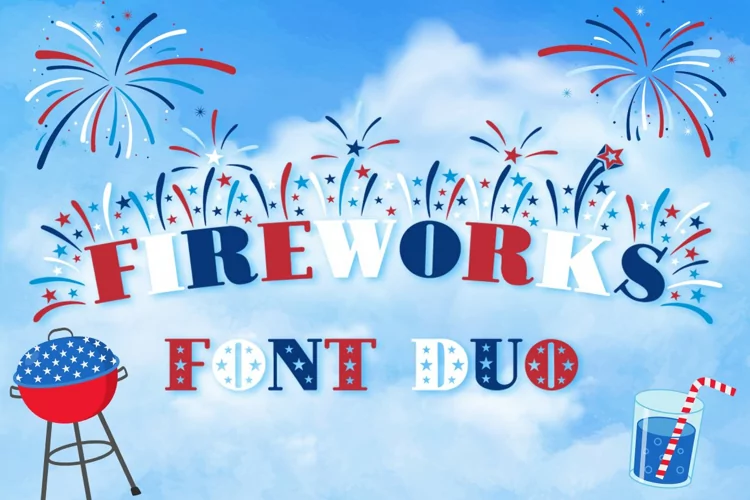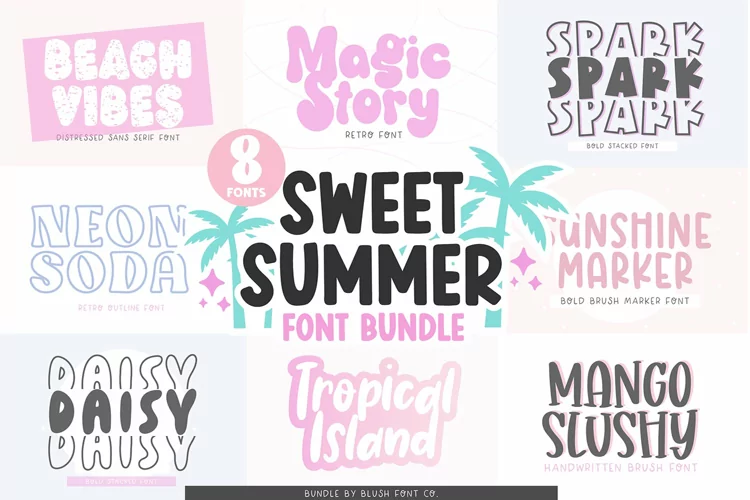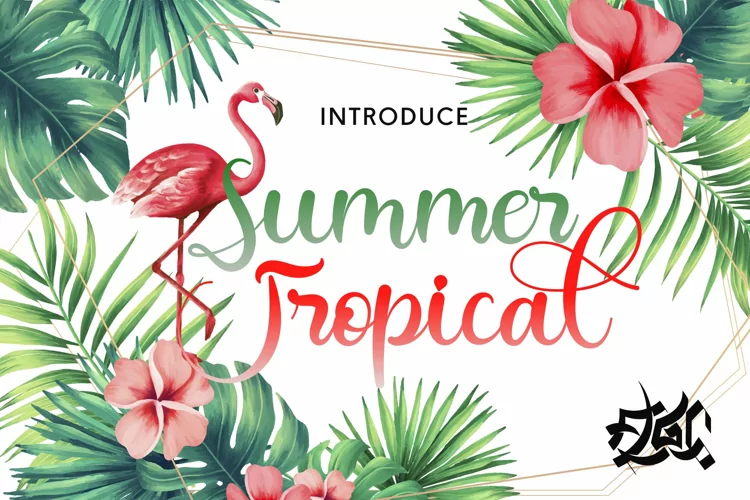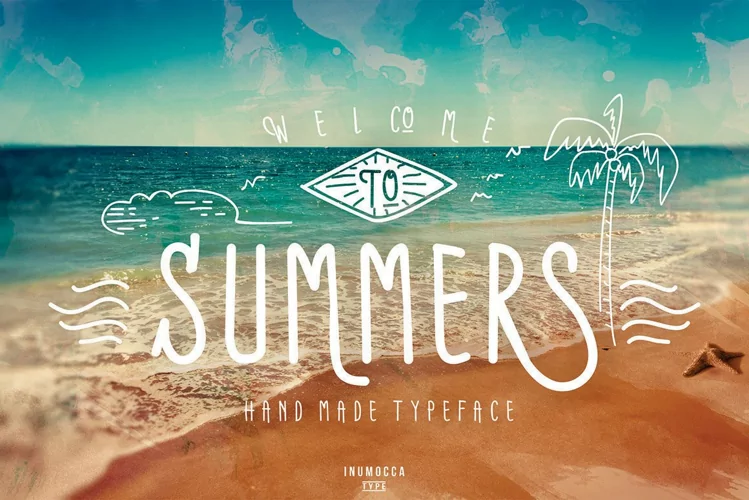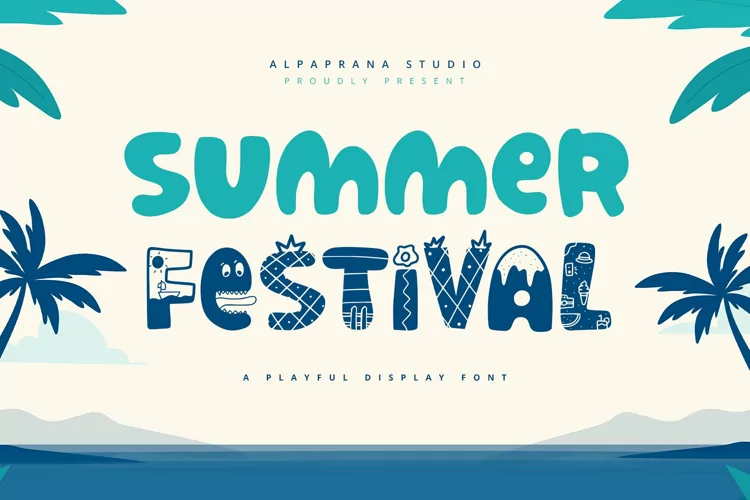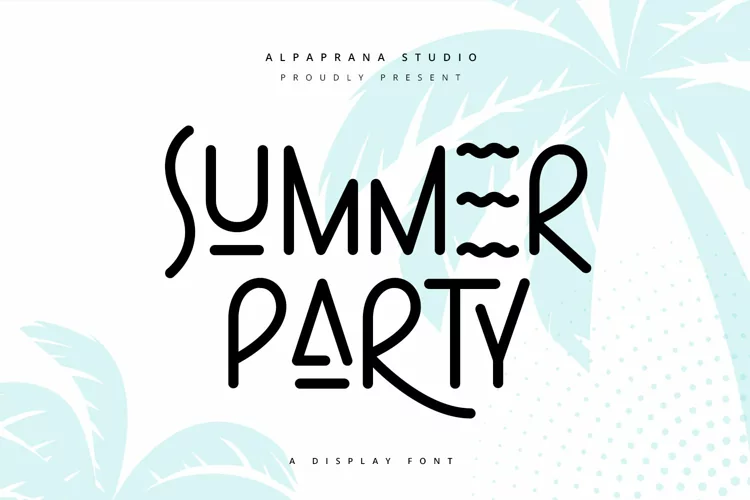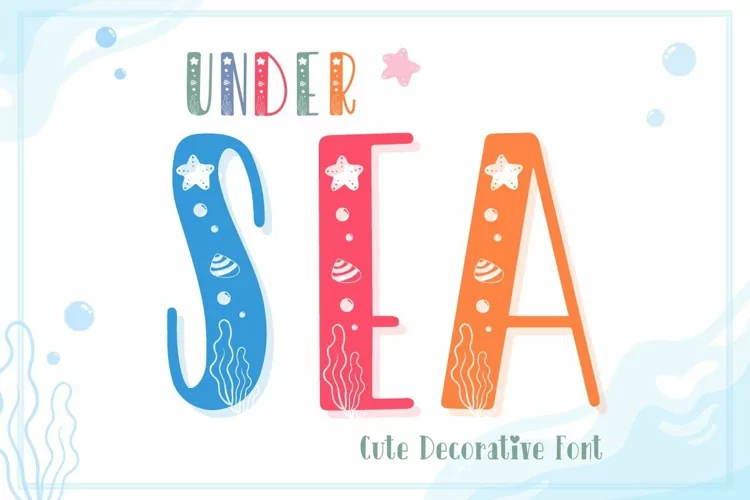
When it comes to design projects, fonts play a crucial role in setting the tone and conveying the right message. With summer right around the corner, it’s time to infuse your creations with the vibrant and playful spirit of the season.
In this article, we’ll explore 10 cheap and free summer fonts that will take your design projects to the next level. From invitations to décor, these fonts will add a touch of ✨summer magic✨ to your creations.
🌞 Get ready to unleash your creativity and create stunning designs that scream summer! 🌴
How to Use the Summer Fonts
When it comes to design, personal preferences play a significant role. However, it’s essential to remember that certain design rules are timeless and applicable to any project, regardless of the aesthetic. Fonts, in particular, hold significant importance in design.
The choice of font can make or break a design, and with the vast array of options available, it can be challenging to determine where to begin. But worry not! We’re here to help.
Here are some practical tips for using summer fonts in your design projects:
1. Limit your color palette to maintain a clean and cohesive design. Complementary colors like pale blue and white or pink and orange work well.
2. Prioritize legibility over aesthetics. Beautiful decorative fonts may tempt you, but readability is crucial.
3. Pay attention to kerning and line spacing to ensure a visually pleasing composition.
4. Reflect the theme of your design by choosing fonts that align with it. Playful fonts suit summer birthday invitations, while relaxed and casual fonts are ideal for beach resort projects.
5. Consider the tone of your project, whether lighthearted and fun or serious and formal, and select fonts accordingly.
6. Tailor your font choice to your audience. Different projects require different fonts, so be mindful of your target audience.
7. Keep it simple by avoiding excessive fonts or decorations. Stick to one or two fonts used sparingly.
8. Finally, enjoy the creative process. Let the vibrant and playful nature of summer fonts inspire your design.
10 Summer Fonts that are Perfect for Everything from Invitations to Décor
Now, let’s dive into our selection of ten cheap and free summer fonts that are perfect for everything from invitations to décor. These fonts will infuse your designs with the essence of summer, whether you’re going for a tropical, nautical, or simply playful theme.
Here they are:
1. Fabulous Summer Font Bundle
Design Projects that You Can Create with Summer Fonts in Canva
Summer fonts offer a wide range of possibilities for your design projects, and Canva is here to help you take your summer creations to the next level.
Here are seven summer designs/projects you can create using Canva and our favorite summer fonts.
1. Chic Summer Party Invitation: Combine a light and airy script font with a traditional serif font to create an elegant and fun summer party invitation. Consider using fonts like Summer Tropical, Summers or Summer Party.
2. Fun and Festive Birthday Party Invitation: Make your birthday party invitation stand out with a bright and colorful font that captures the excitement of the event. Fonts like Under Sea or Summer Festival are perfect for this.
3. Bright and Bold Beach Party Invitation: Create a beach party invitation that catches everyone’s attention with a vibrant and bold font. Fonts like Summer Festival or Summer Party will make your invitation pop against a beach-themed background.
4. Pool Party Invitation: Dive into the summer fun with a playful and energetic font for your pool party invitation. Fonts like Summer Beach or Summers will bring the perfect touch of excitement.
5. Summer-Themed Baby Shower Invitation: Capture the sweetness of a summer-themed baby shower with a font that is both sweet and playful. Fonts like Summer Tropical or Summer Festival will help create an adorable invitation.
6. Tropical-Themed Bridal Shower Invitation: Transport your guests to a tropical paradise with fonts that evoke the feeling of the tropics. Fonts like Hayati or Bikini Babe will set the right mood for your bridal shower.
7. Patriotic Fourth of July Celebration Invitation: Get your guests in the patriotic spirit with fonts that embody the essence of America. Fonts like Fireworks Fonts Duo will help you create a memorable Fourth of July celebration invitation.